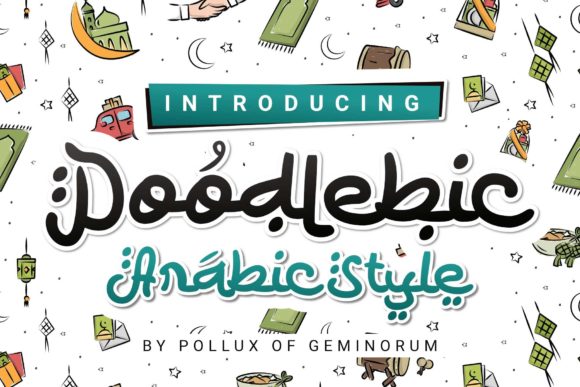
Dive into the enchanting world of typography with Doodlebic, a remarkable display font that captures the essence of Arabic calligraphy, fusing tradition with a dash of modernity. This visually captivating font takes you on a journey through the rich cultural heritage of the Middle East, adding a touch of elegance and sophistication to your designs.
With Doodlebic, you have the power to transform your digital creations into captivating masterpieces. Its meticulously crafted characters, each a labor of love, dance across the page, evoking a sense of wonder and intrigue. Whether you're designing logos, posters, flyers, or social media graphics, Doodlebic weaves its magic, leaving an unforgettable impression on your audience.
Embrace the boundless versatility of Doodlebic. Its charming personality shines through in a myriad of design projects, from branding and web design to editorial and packaging. It seamlessly adapts to any context, enhancing the impact of your messages and leaving a lasting impact on your customers.
Unleash your creativity and let Doodlebic guide you to typographic excellence. This font is more than just a collection of letters; it's an invitation to explore the depths of your imagination and craft designs that resonate with your audience.